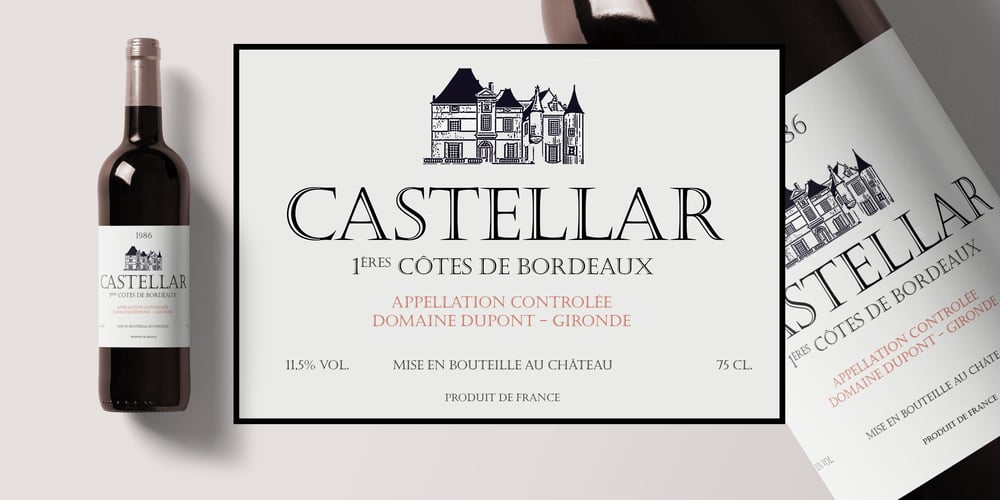
Castellar MT
Castellar MT font
Castellar MT Font Family was designed by John Peter and published by Monotype. Castellar MT contains 1 styles and family package options. Castellar is a capital letter typeface from John Peters, named after a location in the Alps. It first appeared in 1957 with Monotype. Peters modelled the design on the Roman script Scriptura Quadrata as it was used in the first two centuries of the Roman Empire. One distinguishing characteristic is the quadratic proportions of many letters, which are however mixed with circular and narrow forms. The original script was called Scriptura Quadrata because the ancient engravers used rectangular stone plates for their work. Castellar is a typical title typeface and is best used in large and very large point sizes to highlight its classic elegance.